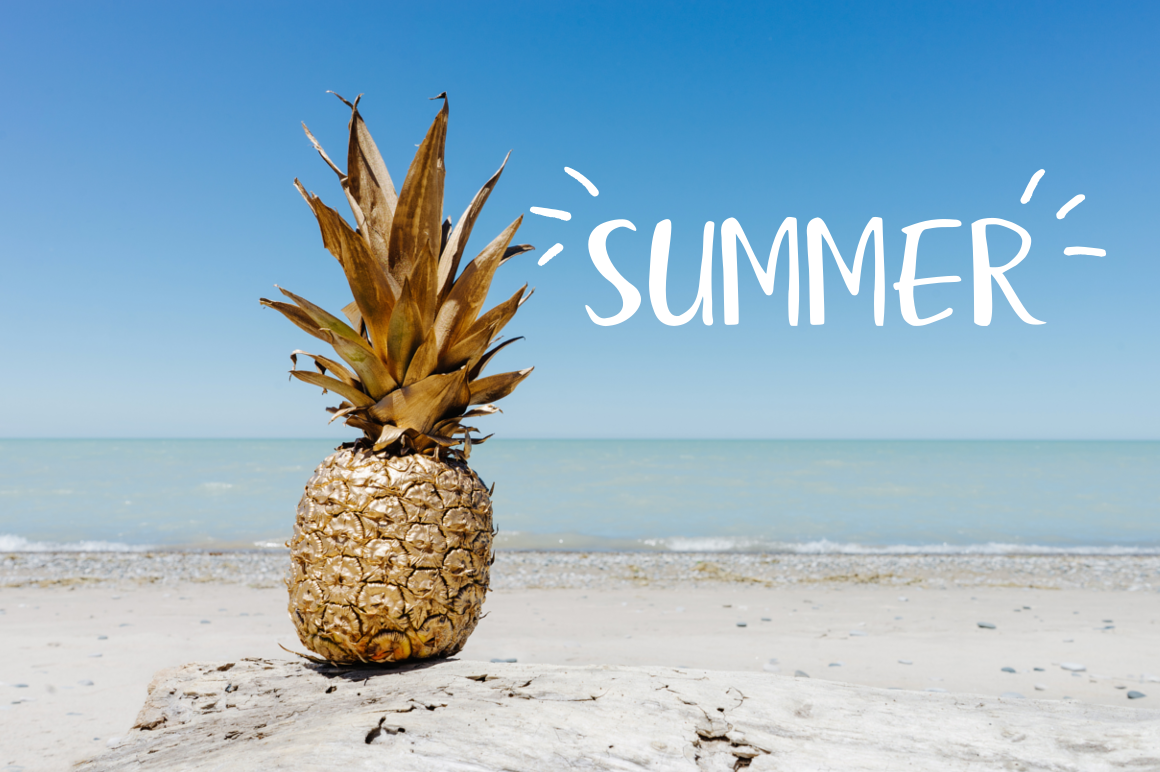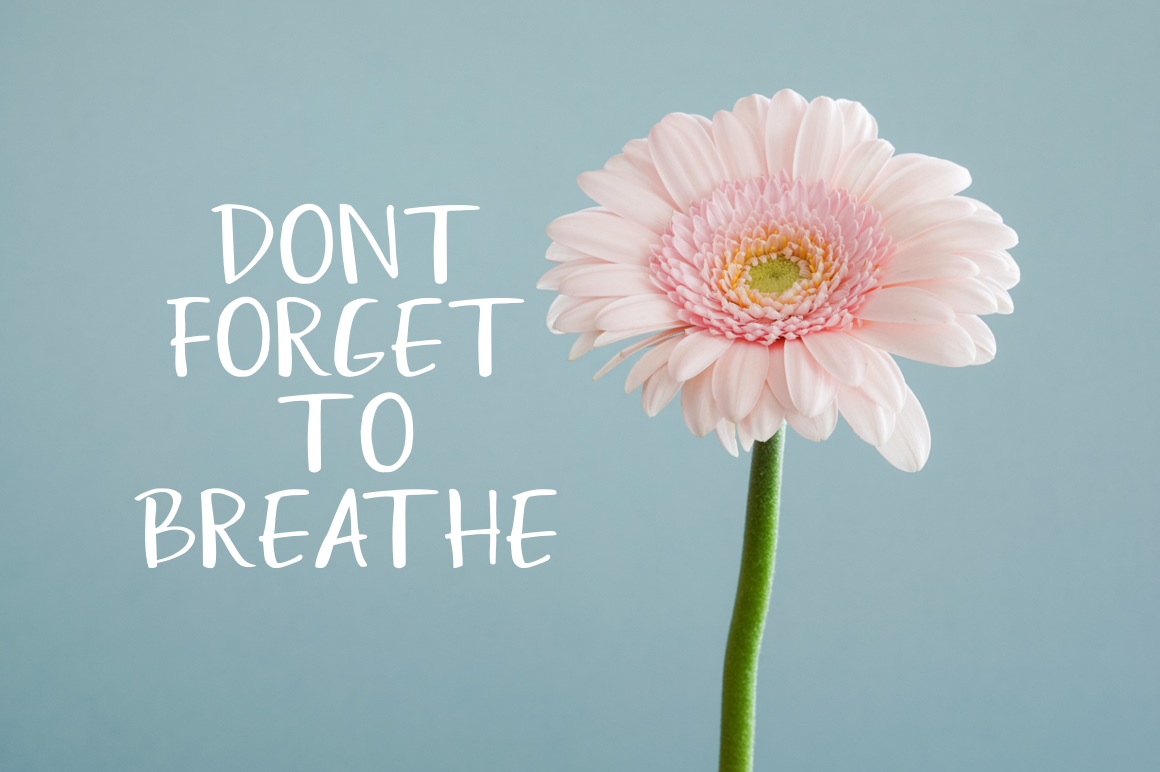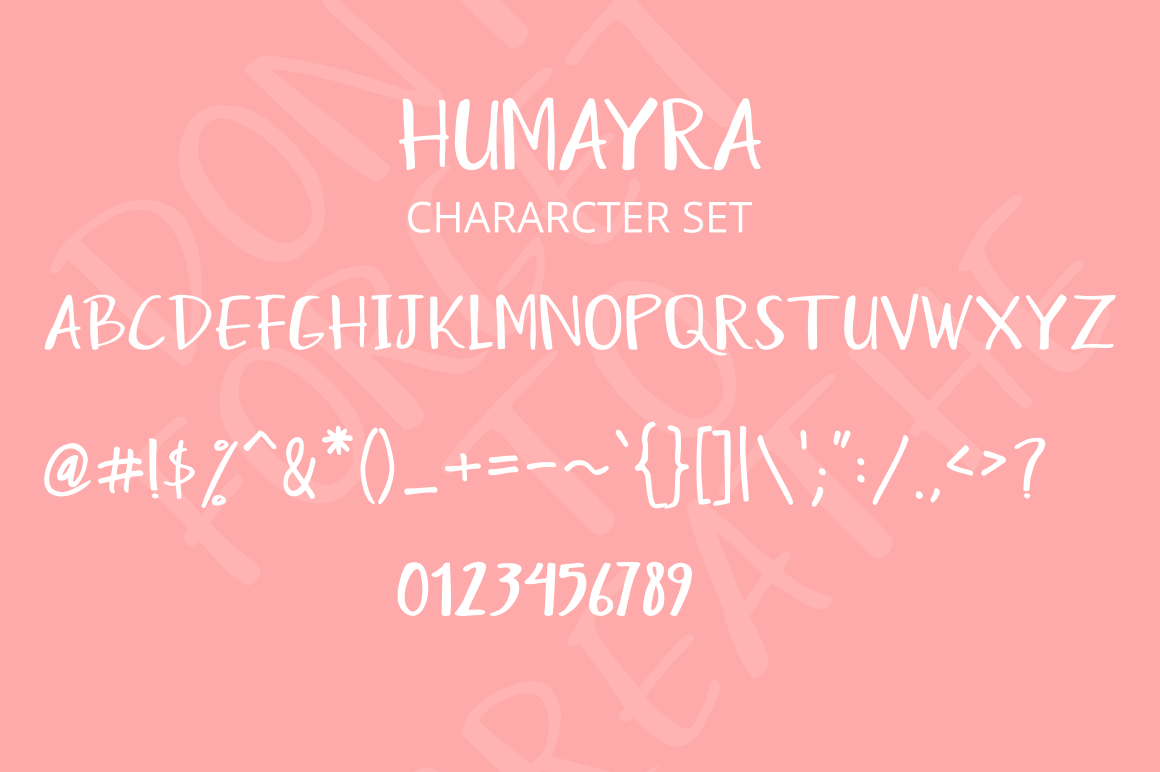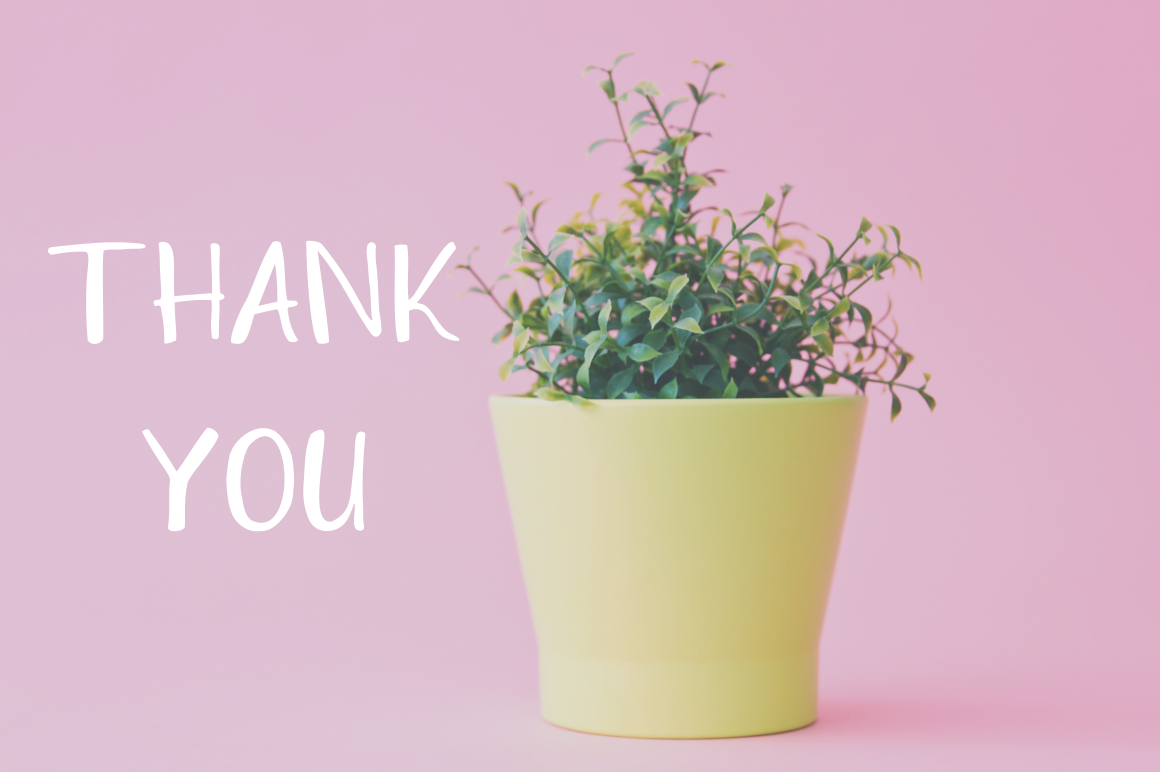
Introduction to Humayra Font
Humayra is beautiful handmade font.
This all caps sans serif is ideal for relaxed designs that need a legible and engaging appeal Humayra is perfectly suited to displays and headlines.
Key Features of Humayra Font